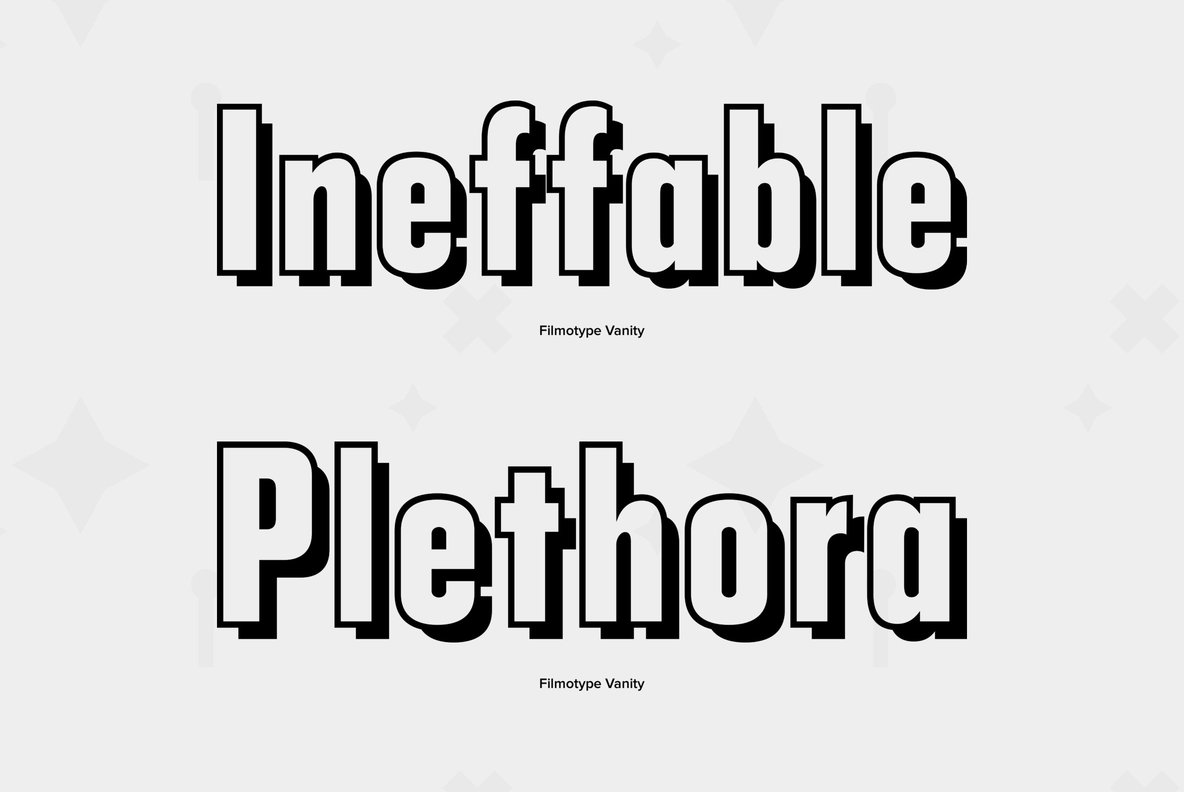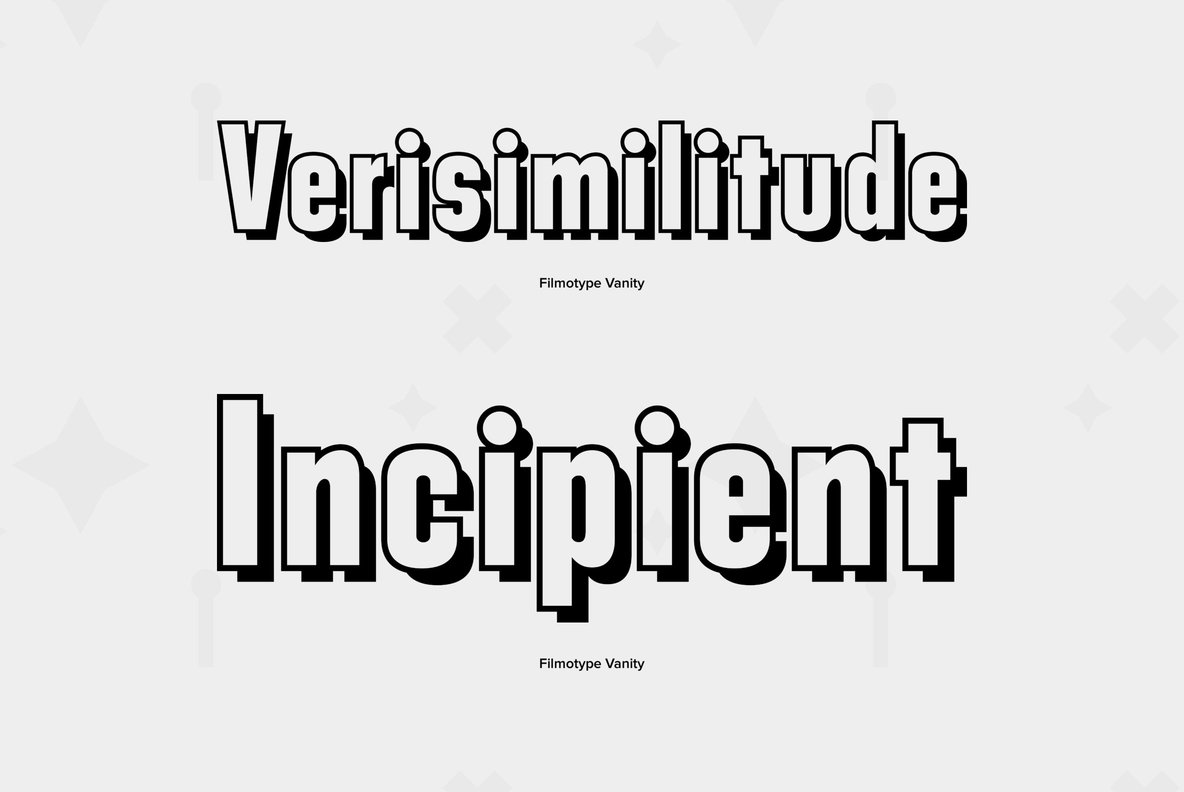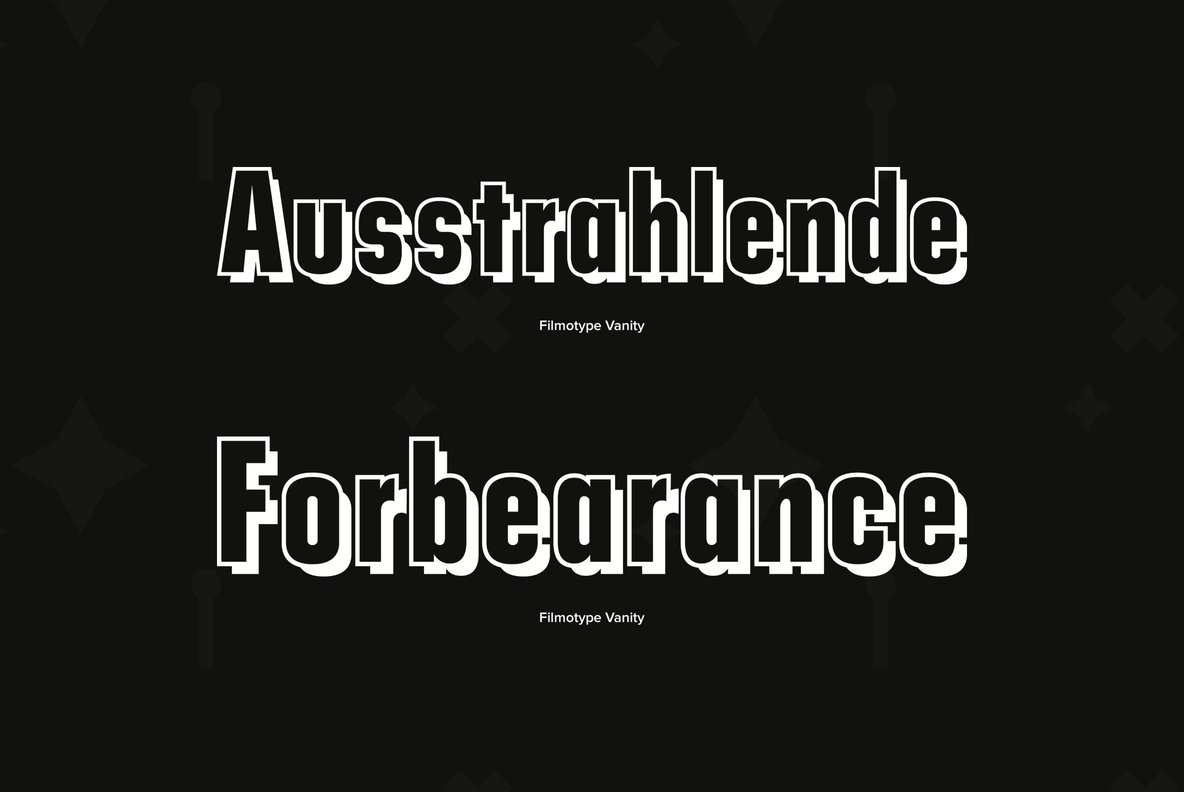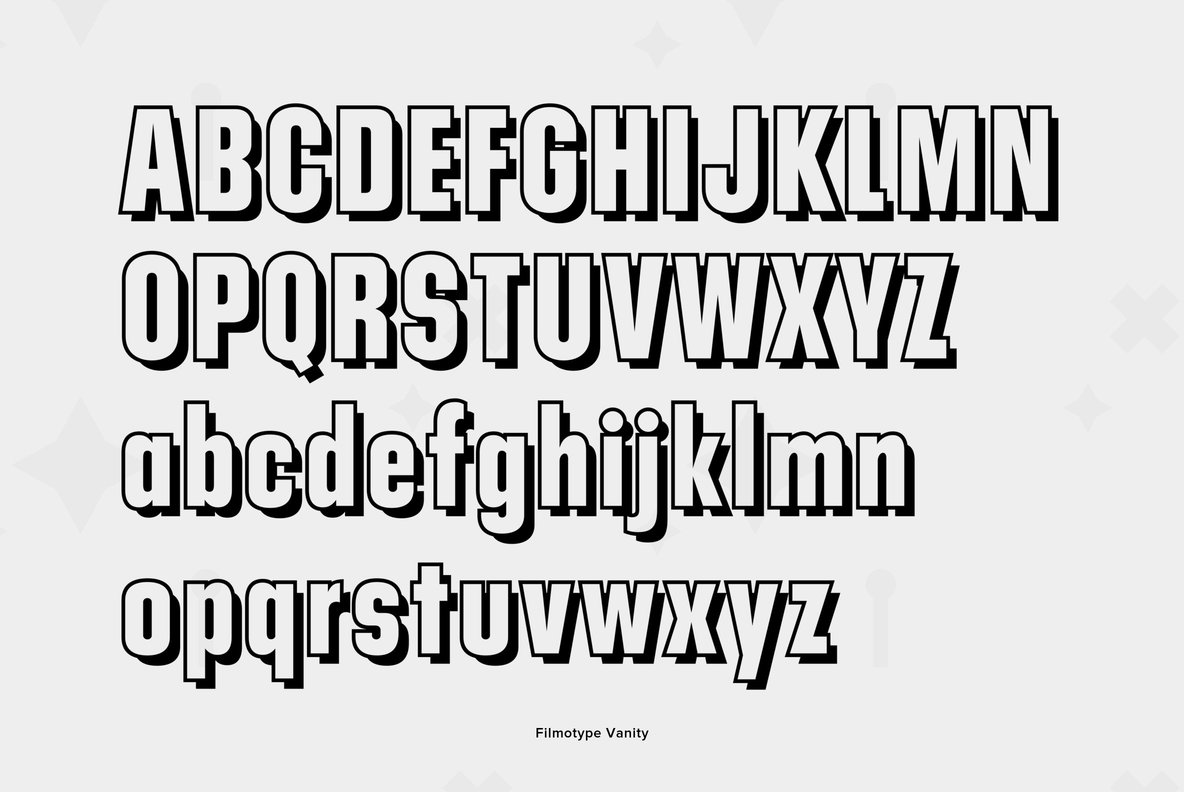
Filmotype Vanity
Filmotype Vanity marks the beginning of Filmotype’s effect style Outline fonts, all of which incidentally start with the letter V, was developed from the original Filmotype Ginger typeface.Since technology didn't exist in the late-1950s to create drop-shadowed or outline styled fonts within the Filmotype machine, each letter was originally meticulously hand rendered and redrawn in this special effect style. Like it’s sibling Filmotype Ginger, Filmotype Vanity includes a full international character compliment, automatic fractionals, ordinals, an all CAPS setting, and a suite of alternates in dynamic OpenType format.